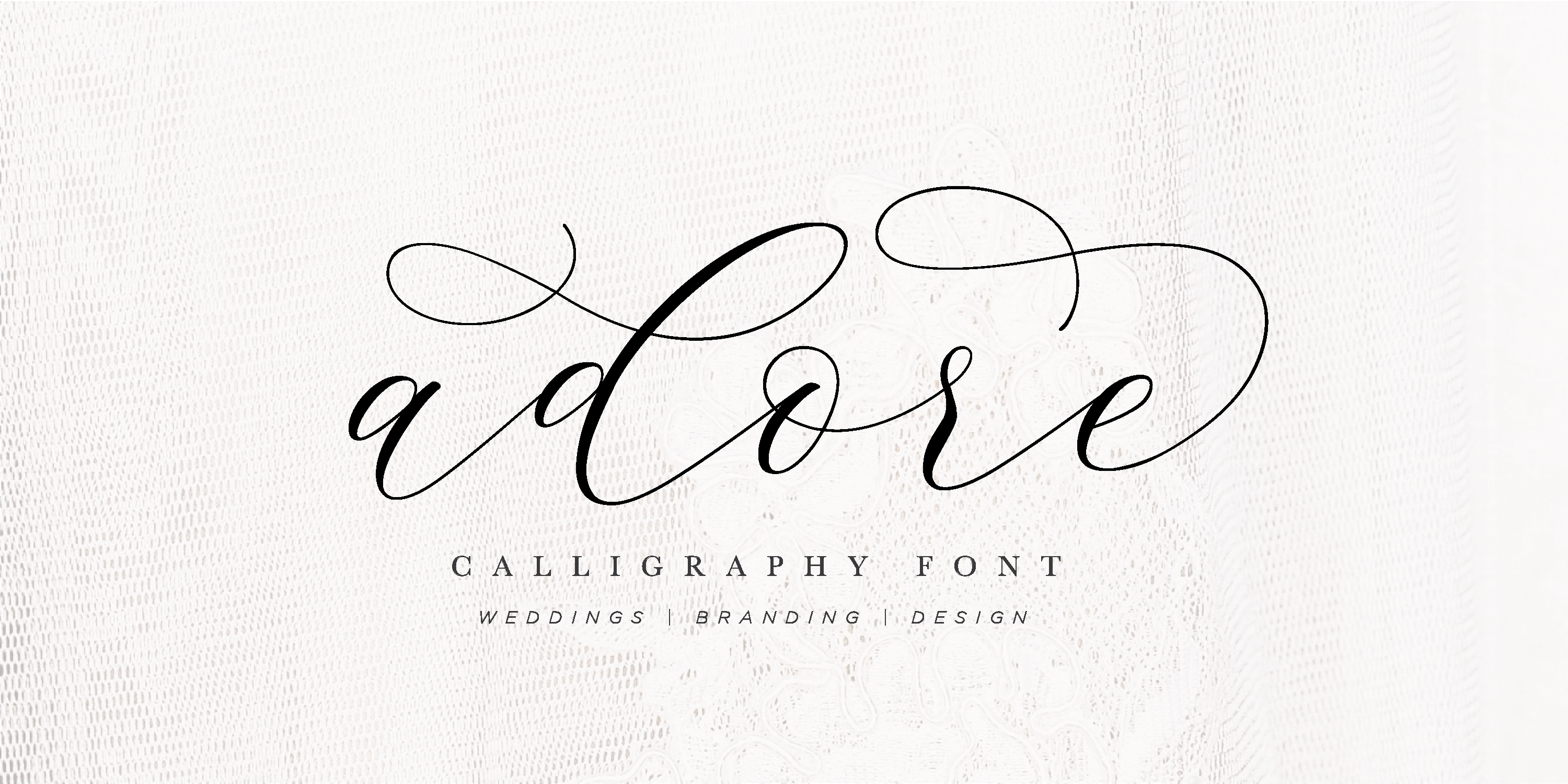
The Adore Calligraphy Font is ideal for romantic wedding invitations, elegant love letters, heartfelt anniversary cards, sophisticated bridal shower materials, intimate event stationery, luxury beauty branding, romantic restaurant menus, and passionate Valentine's Day campaigns. This enchanting typeface excels in projects for wedding planners, calligraphy artists, romantic venues, luxury brands, and businesses seeking to express deep affection, intimate elegance, and the timeless beauty of handwritten love.
What makes the Adore Calligraphy Font exciting is its exquisite capture of passionate romance with flowing calligraphic elegance and heartfelt intimacy. The font features gracefully flowing letterforms with delicate flourishes and romantic curves that embody the tender beauty of handwritten love letters and intimate expressions. Its romantic character and calligraphic artistry make it perfect for couples and brands seeking to convey deep emotion, genuine affection, and authentic romantic sentiment. The font's loving presence and intimate charm transform ordinary messages into treasured romantic keepsakes.
The Adore Calligraphy Font family includes romantically-inspired variations: Light Whisper, Regular Affection, Bold Passion, Script Devotion, Ornamental Love, and Flourished versions. Each style maintains the font's calligraphic character while offering different levels of romantic expression and intimate sophistication for diverse love-themed applications. The family also features heart ornaments, romantic swashes, love symbols, and passionate decorative flourishes that enhance wedding and romantic design projects.
Whether you're developing romantic brand identities, creating intimate marketing materials, or designing passionate promotional campaigns, the Adore Calligraphy Font Free Download provides the perfect solution for projects requiring authentic romantic typography. This exceptional typeface brings genuine calligraphic love to design work, making it an essential resource for designers celebrating romance, intimate relationships, wedding ceremonies, and the eternal beauty of handwritten expressions of love and devotion.